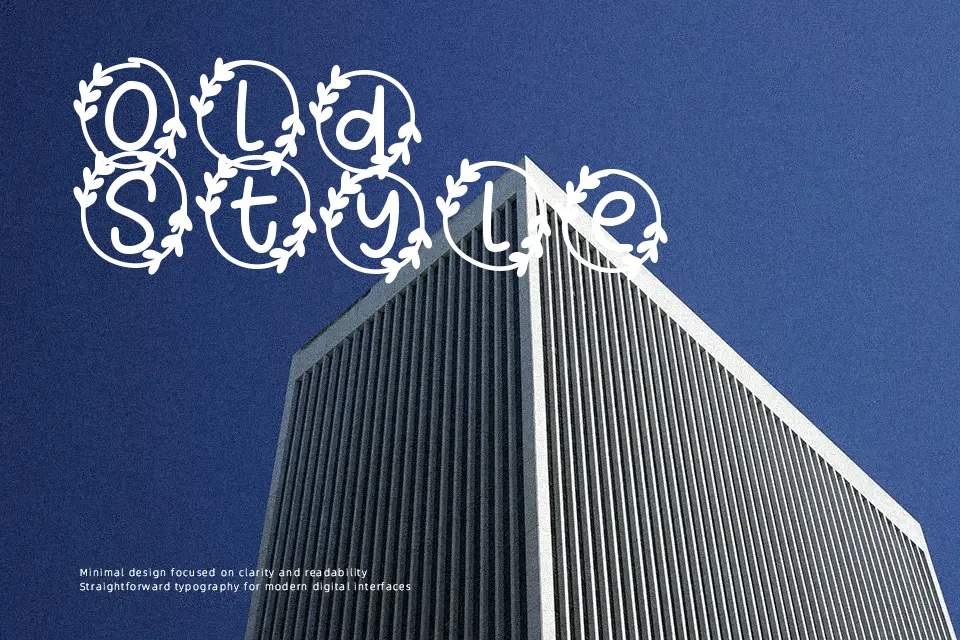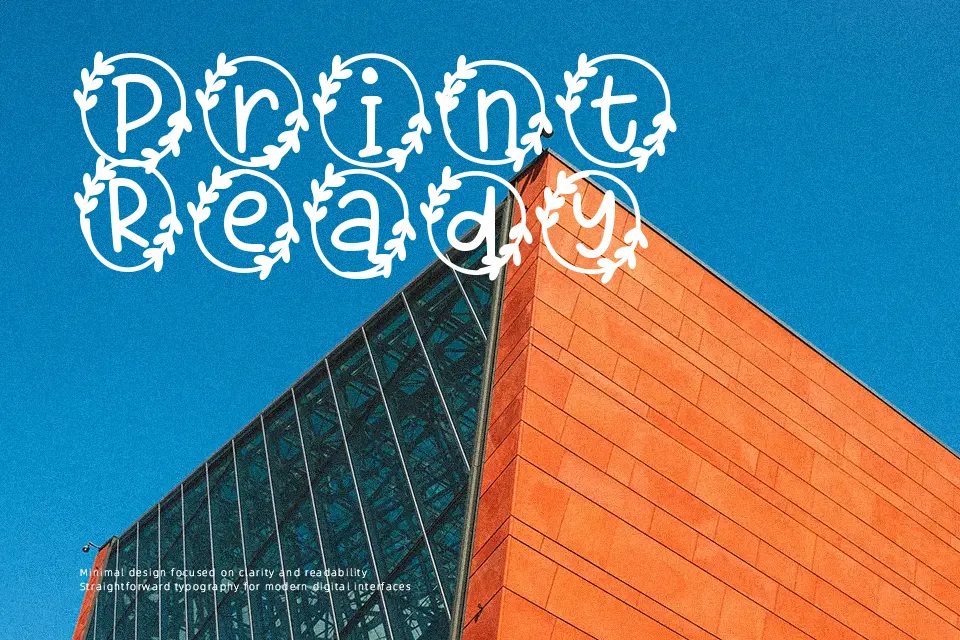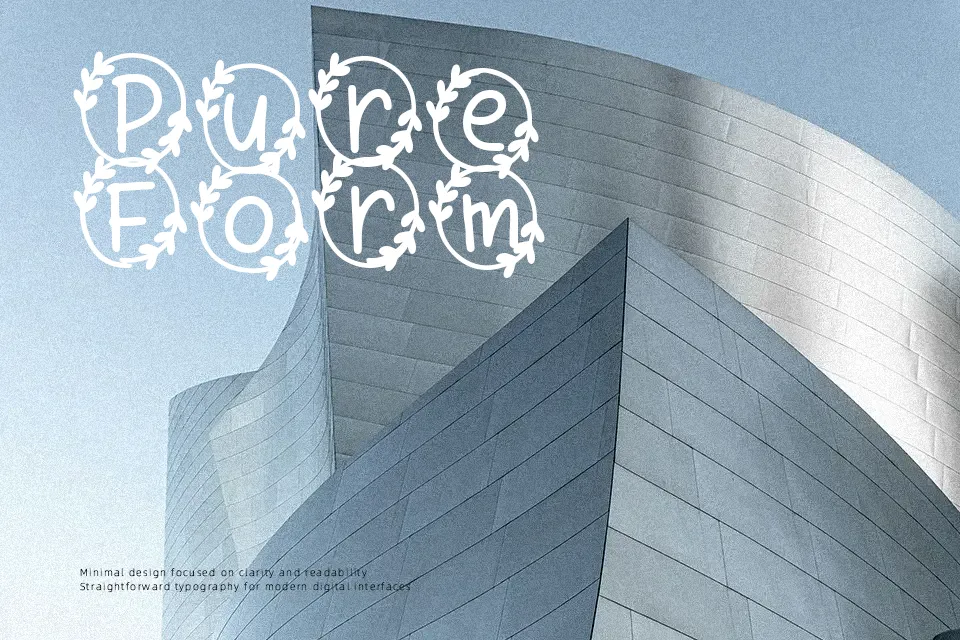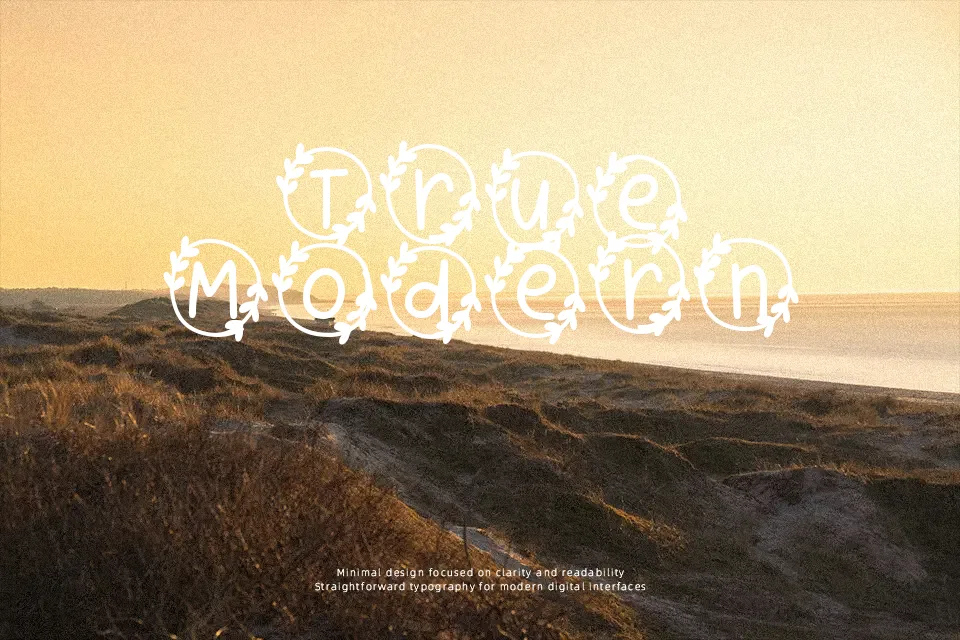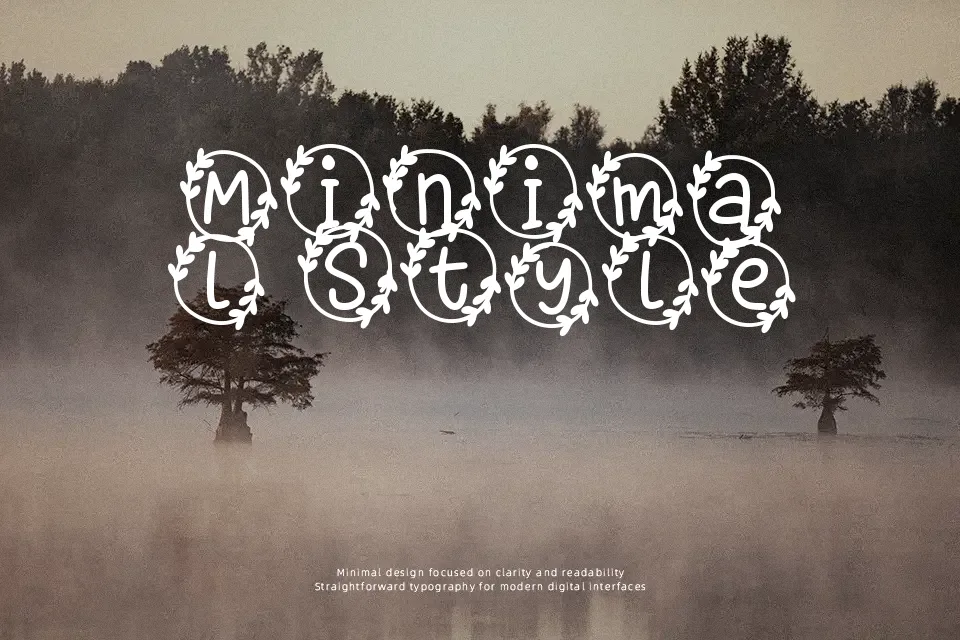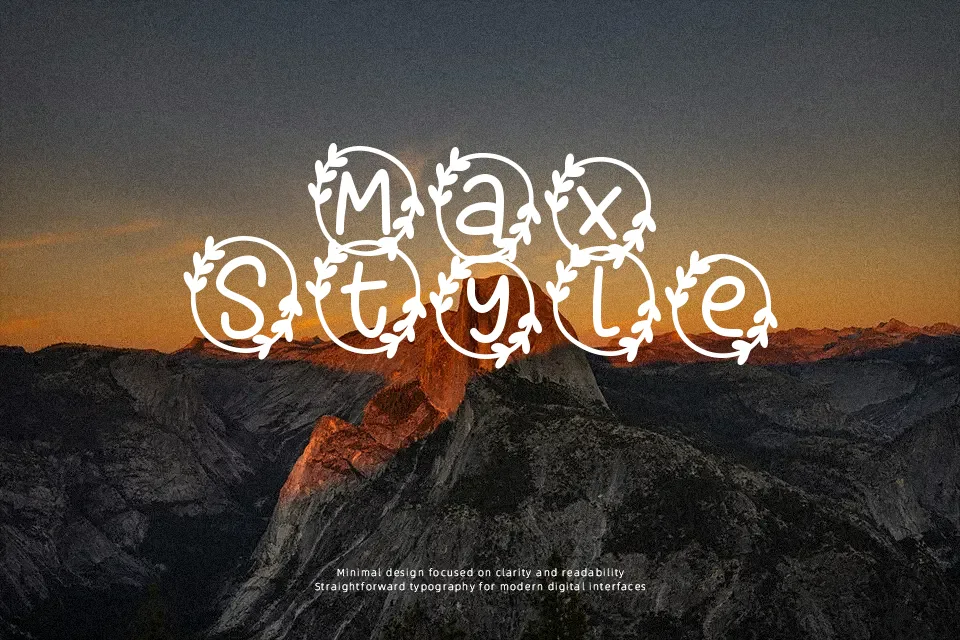
Bubble Heart Monogram Font
Bubble Heart Monogram uses plump, even strokes drawn into circular badges, with small heart details tucked into the shapes to keep it light and highly decorative. Spacing is fairly generous, so letters feel airy rather than cramped, which helps when you build initials, short names, or simple words. The overall impression is casual, cute, and clearly decorative, closer to playful monogram and kids’ display lettering than to handwriting or serious branding. It works nicely for Valentine cards, nursery prints, party favor tags, stickers, and craft projects where the font itself can act as the main graphic. For dense body copy, minimalist tech brands, or formal corporate layouts, the bubbly outlines and hearts quickly become too busy and can make the design feel less polished.
Valentine cards and love-themed graphics
Kids’ products, party decor, and stickers
Personalized monogram gifts and crafts
Social media posts for sweet announcements
Long paragraphs or body text-heavy layouts
Formal corporate or minimalist tech branding
Serious editorial or news-focused designs
Small-size UI text where details blur
Perfect for kids, logo, and poster, with a cute and decorative style.